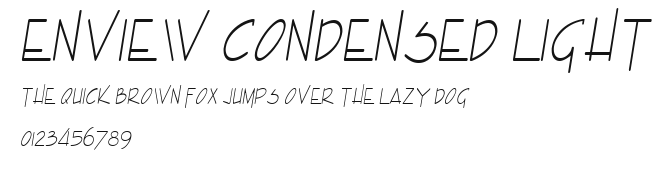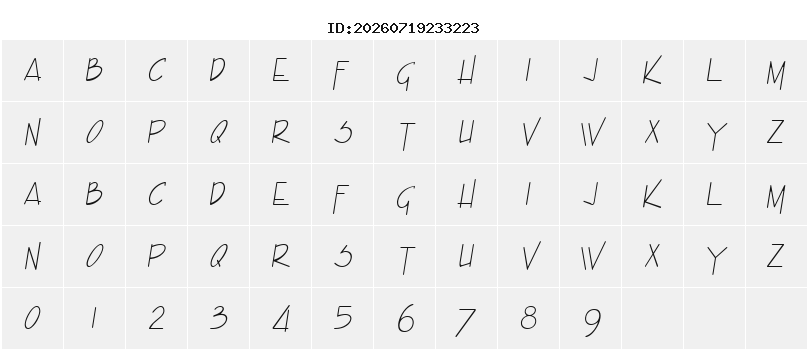
About Enview Condensed Light.ttf
Enview Condensed Light.ttf is a modern, elegant sans-serif font designed for ultimate readability and visual harmony. Perfect for branding, headlines, web design, and print materials.